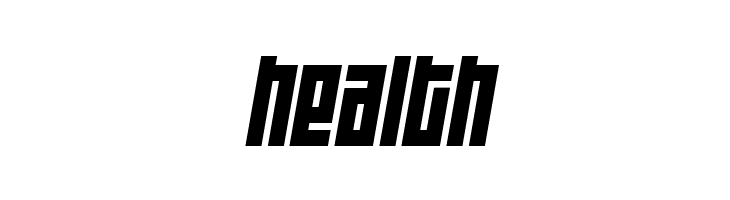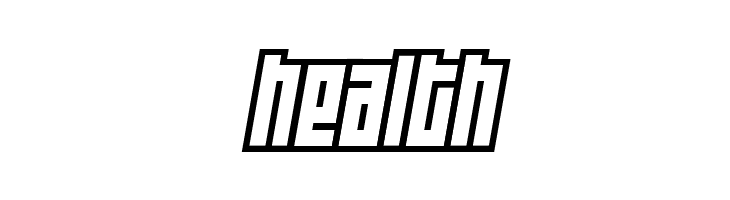
A bold, outlined font with a playful and modern style.
Bold, modern font with a slightly condensed style and uniform stroke width.
A bold, angular font with a dynamic and modern style.
A bold, geometric font with angular shapes and outlined characters.
A bold, futuristic font with slanted, geometric characters.
A bold, geometric font with a futuristic and edgy style.
A bold, outlined font with a playful, retro style.